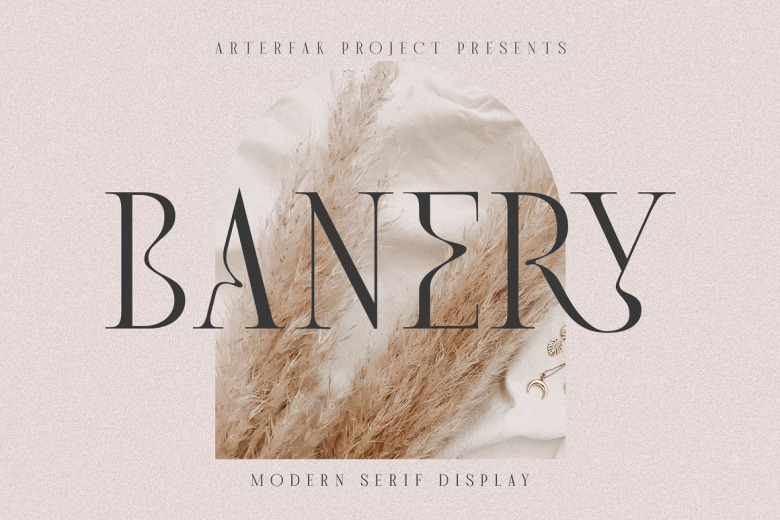
Banery Font
Banery, a minimalist serif font crafted in geometric shapes with stark contrast between thick and thin strokes, offers alternate characters with novel designs as well as beautifully twisted details that combine to evoke an air of delicacy, elegance and exclusivity.
Banery can aptly accent minimalist themes found in furnishings, ceremonies, fashion, cosmetics, real estate, fragrances and many other contexts with its restrained refinement and modern panache.
Banery Modern Serif Font